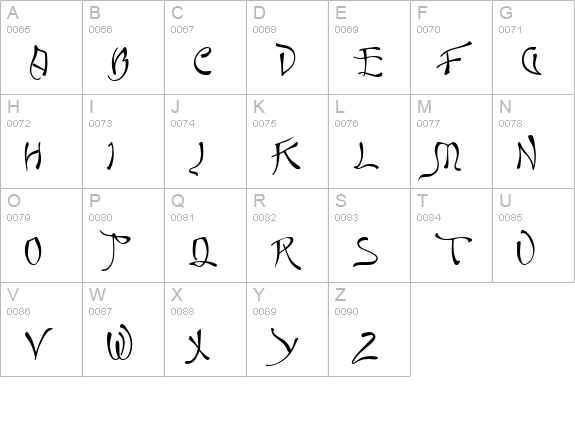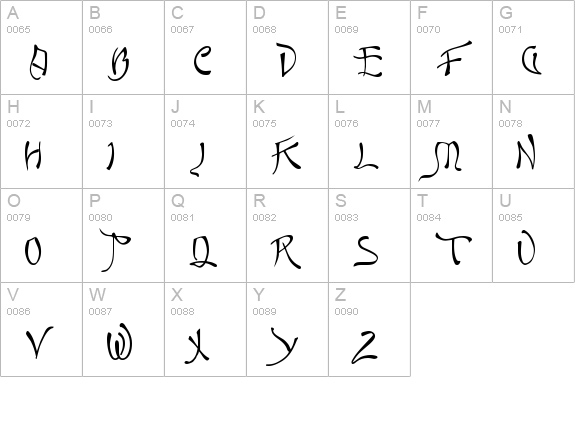
Quasi Font Details
Quasi font is a unique and modern typeface that combines elegance and versatility. With its clean lines and distinctive curves, Quasi font stands out in any design project. It exudes a sense of sophistication, making it perfect for branding, advertising, and editorial purposes. What sets Quasi font apart is that it is not only visually appealing but also freely available to download. FontsMarket.com offers this beautiful font for free, allowing designers and creatives to enhance their work without breaking the bank. Whether you're creating a logo, designing a website, or working on a print project, Quasi font provides endless possibilities. Its wide range of weights and styles ensures flexibility, enabling you to convey different moods and messages effortlessly. The sleek and modern aesthetic of Quasi font is complemented by its excellent legibility, making it suitable for both headlines and body text. Its attention to detail and precise spacing contribute to a seamless reading experience, regardless of the medium. Quasi font is designed with professionalism and usability in mind. Its versatile nature allows it to adapt to various design themes and contexts, ensuring that your message is conveyed effectively. Whether you're going for a minimalist look or a bold and vibrant approach, Quasi font can effortlessly elevate your designs. Download Quasi font for free at FontsMarket.com and unlock its full potential. With its elegant and contemporary style, this font is a valuable addition to any designer's toolkit. Don't miss out on the opportunity to enhance your projects with this remarkable typeface.